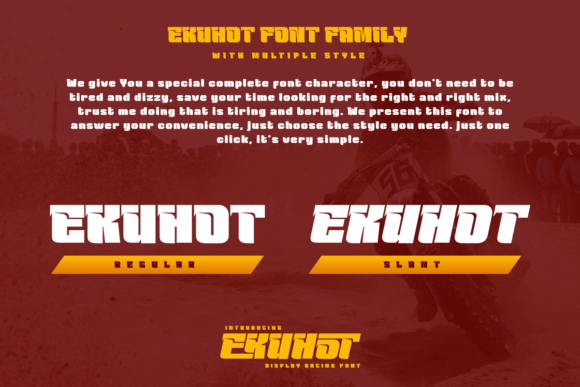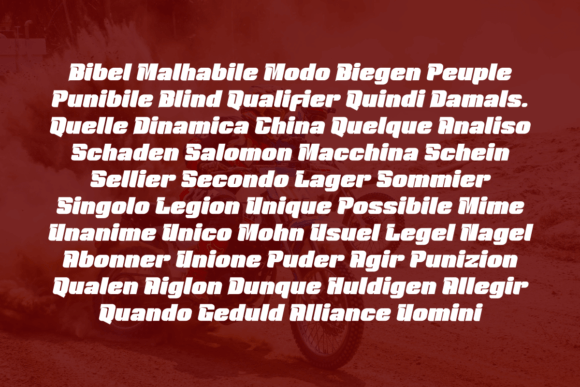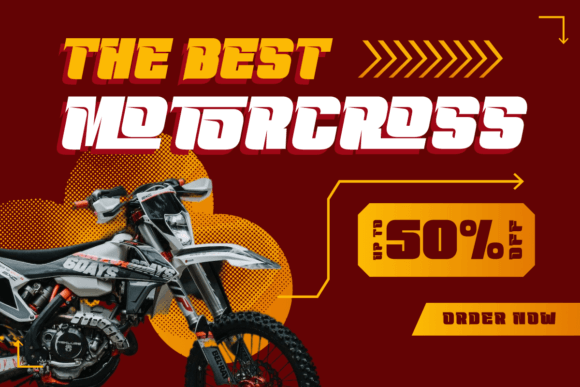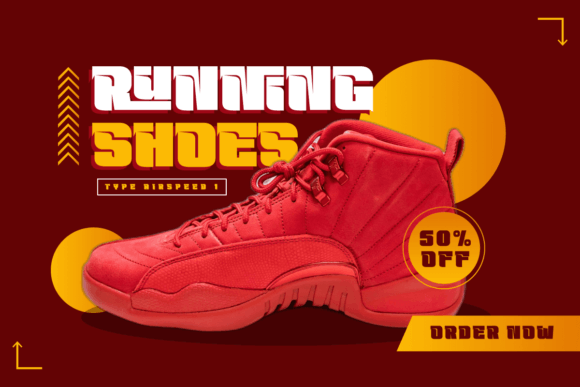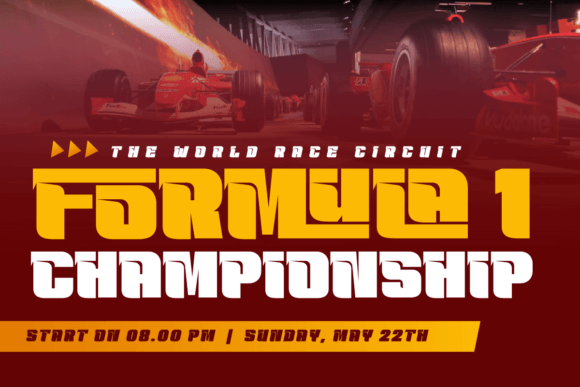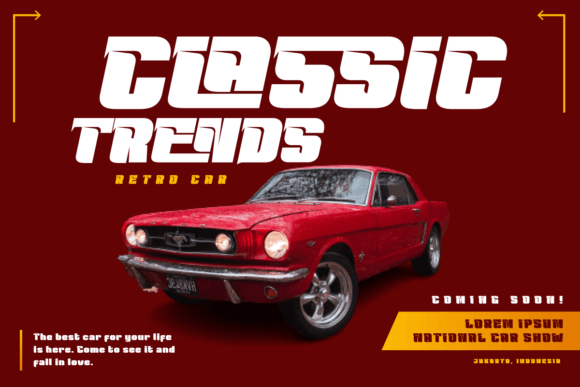
Unleashing Creativity: The Power of Ekuhot Font
Have you ever stared at a blank page, waiting for the perfect font to spark your creativity? The moment of inspiration finally hits, and you type out a few words – and suddenly, the entire design falls into place. It’s a feeling every designer knows and loves.
That’s where Ekuhot Font comes in – a precision-crafted font designed to elevate your projects with its dignified character, bold, and sporty vibe. With its numerous alternate variations and ligature styles, every word becomes a masterpiece. Whether you’re crafting headlines or body text, Ekuhot Font is the perfect tool to make your project shine.
As a designer, you know the value of a well-chosen font. Ekuhot Font offers a level of sophistication and style that’s hard to find. With its versatility and numerous design options, it’s the perfect addition to your creative toolkit.
Ekuhot Font Key Features
- Font Family: Ekuhot Font comes in 4 different font styles – Regular, Bold, Italic, and Bold Italic.
- Character Set: Supports a wide range of languages, including Latin, Cyrillic, and Greek alphabets, making it suitable for multilingual designs.
- Unique Characteristic: Ekuhot Font features a unique blend of modern and traditional design elements, making it perfect for creating visually appealing and unique designs.
Ekuhot Font Review
I recently had the chance to work with the Ekuhot font, and overall, I’m quite impressed. Here’s my honest review.
- Ekuhot has a unique, modern aesthetic that’s perfect for contemporary designs.
- The font is highly legible, even at smaller sizes, making it great for body text.
- The font supports a wide range of languages, making it a versatile choice for global designs.
- The font is highly customizable, with various weight and style options to choose from.
Any limitations ⚠️
- The font may not be suitable for traditional or formal designs, as its modern style may not fit the tone.
- The font is quite bold, so it may not be ideal for designs where subtlety is key.
- The font may not be as widely supported as some other fonts, which could cause compatibility issues in certain situations.
Overall impression
Overall, I’m a fan of the Ekuhot font. Its modern style and high legibility make it a great choice for many designs. While it may have some limitations, I think it’s a solid addition to any designer’s toolkit.
Tips for Getting the Most out of Ekuhot Font
Use Ekuhot Font for titles, headings, and emphasis to create visual hierarchy.
Experiment with different font sizes and styles to create a unique look.
Combine Ekuhot Font with other fonts to create a visually appealing contrast.
Common Use Cases for Ekuhot Font
Use Ekuhot Font for branding and logos